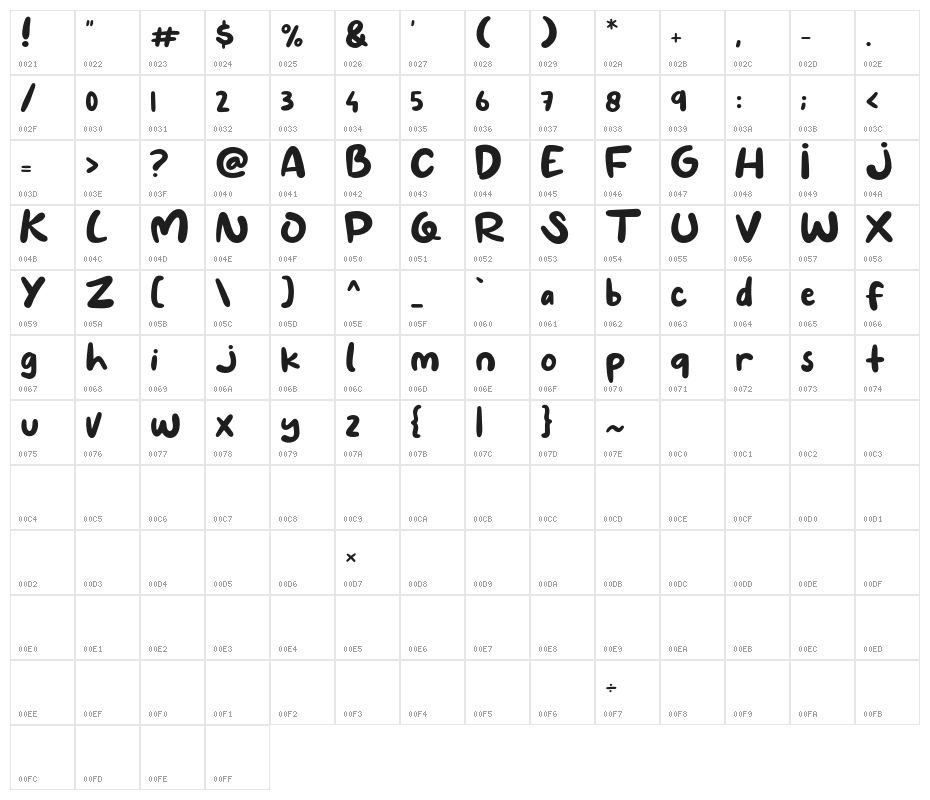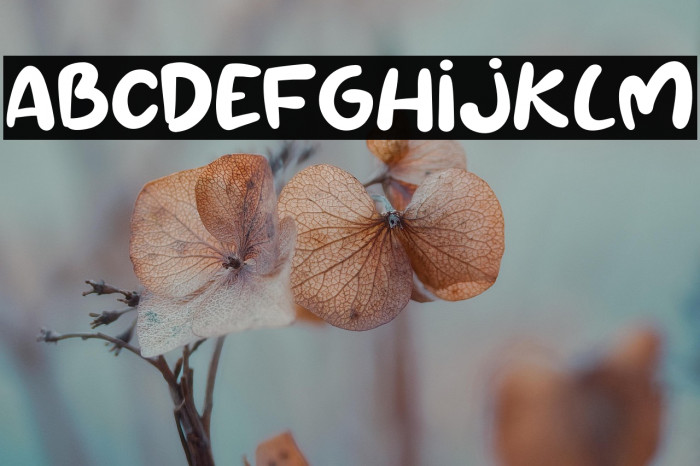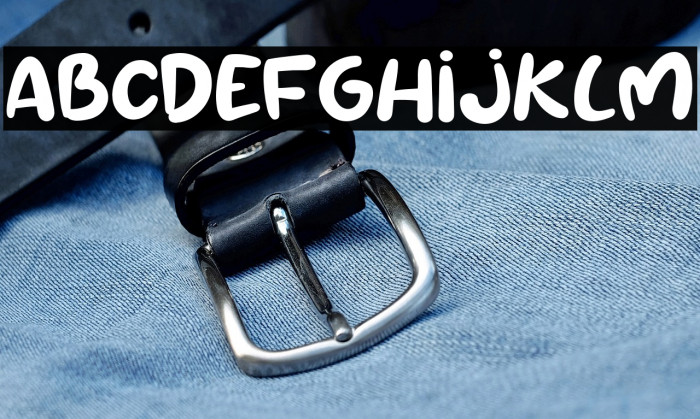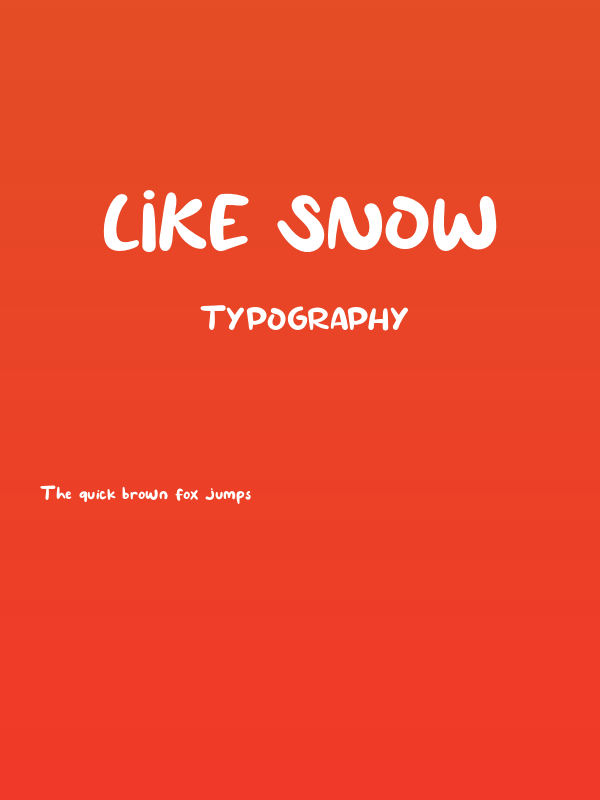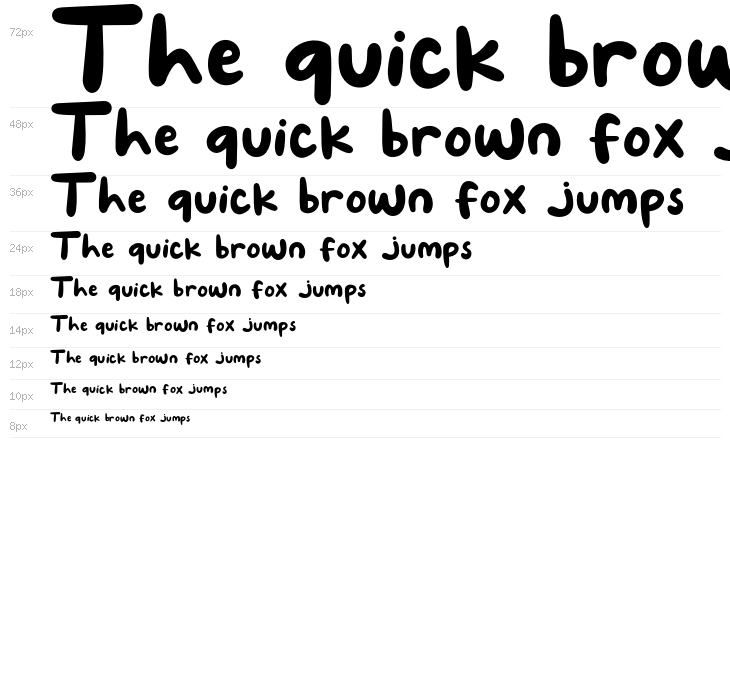
Like Snow Font
Like Snow Description
This playful and bold font exudes a sense of whimsy and fun, characterized by its rounded and slightly irregular letterforms. The strokes are thick and consistent, giving it a strong presence on the page. The overall appearance is casual and friendly, making it ideal for informal and creative projects. The characters are well-spaced, ensuring readability while maintaining a lively and energetic feel. Its unique style is reminiscent of hand-drawn lettering, adding a personal touch to any design.
| Overall Style | Playful |
| Proposed Projects | Ideal for children's books, playful branding, greeting cards, and creative posters. |